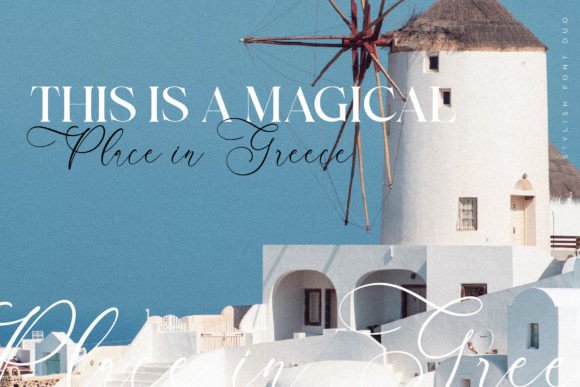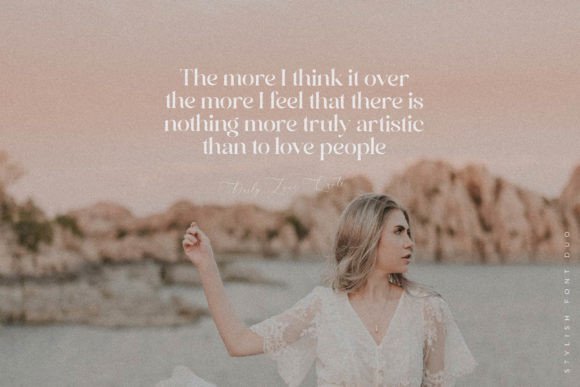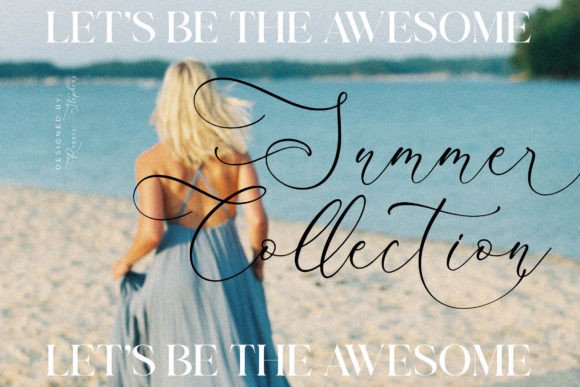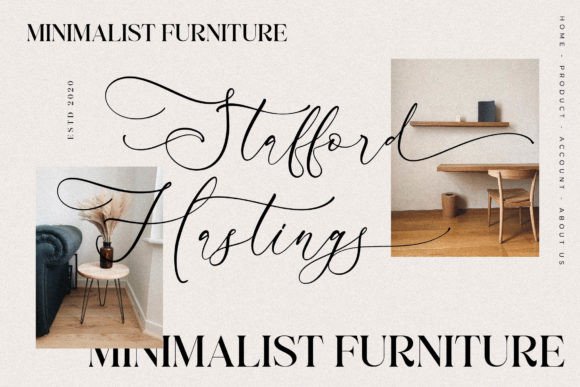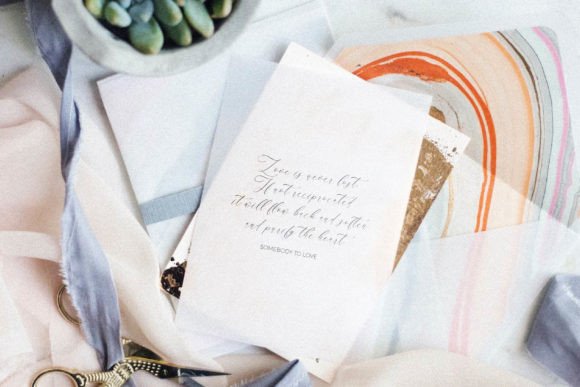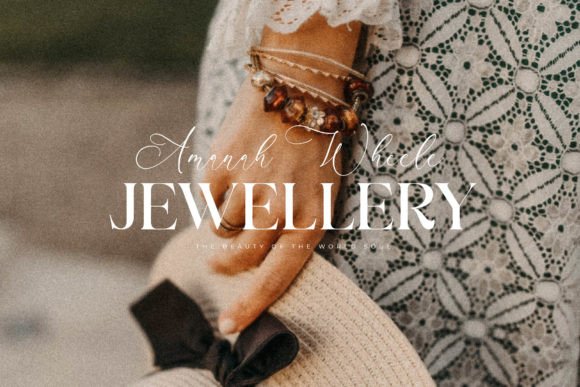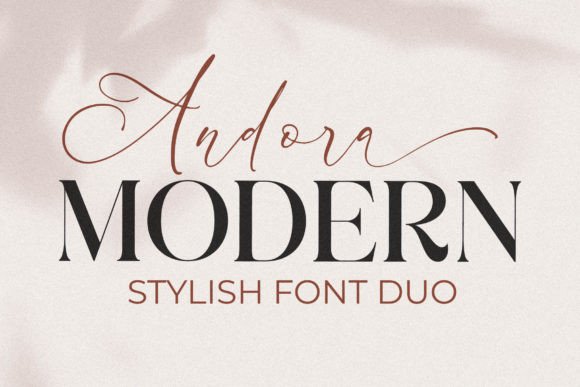
The Designer’s Dream: Andora Modern Font
Have you ever been in the middle of a design project, and suddenly, you’re stuck on finding the perfect font? I remember a recent experience where I was working on a client’s branding project, and I just couldn’t seem to find a font that captured the essence of their brand. That was until I stumbled upon the Andora Modern Font. This stunning font duo, consisting of a serif and script font, has been a game-changer for me, and I’m excited to share my experience with you.
A Personal Review: What I Love About Andora Modern
Andora Modern is more than just a font; it’s a design statement. Here’s what I love about it:
- ✨ Timeless Style: The font’s classic design makes it perfect for a wide range of projects, from elegant branding to beautiful stationery.
- ✅ PUA Encoded: The font is PUA encoded, which means you can easily access all the amazing glyphs and ligatures, making your design process a breeze.
- 💫 Versatility: The font duo includes both serif and script fonts, allowing you to create stunning contrast and visual interest in your designs.
- 👍 Distinctive: The font’s unique style sets it apart from more common fonts, making your designs truly stand out.
While Andora Modern is an excellent font, there are a few things to keep in mind:
- ⚠️ Script Font Limitations: The script font can be a bit tricky to use at smaller sizes, so it’s best to use it for headlines or titles.
- 🤔 Glyph Access: While the font is PUA encoded, you may need to access the glyphs through the OpenType features in your design software.
The story behind Andora Modern is one of passion and dedication. The designer, inspired by classic typography, aimed to create a font that would be both timeless and distinctive. With a focus on elegance and sophistication, Andora Modern was born. Whether you’re a designer, crafter, or creative hobbyist, this font is sure to inspire your next project.
| Font Name | Andora Modern Font |
| Author | Storytype Studio |
| What is Andora Modern? | Andora Modern is a stylish and gorgeous font duo (serif and script) perfect for a wide range of design projects. |
| Is Andora Modern PUA encoded? | Yes, Andora Modern is PUA encoded, making it easy to access all the amazing glyphs and ligatures. |